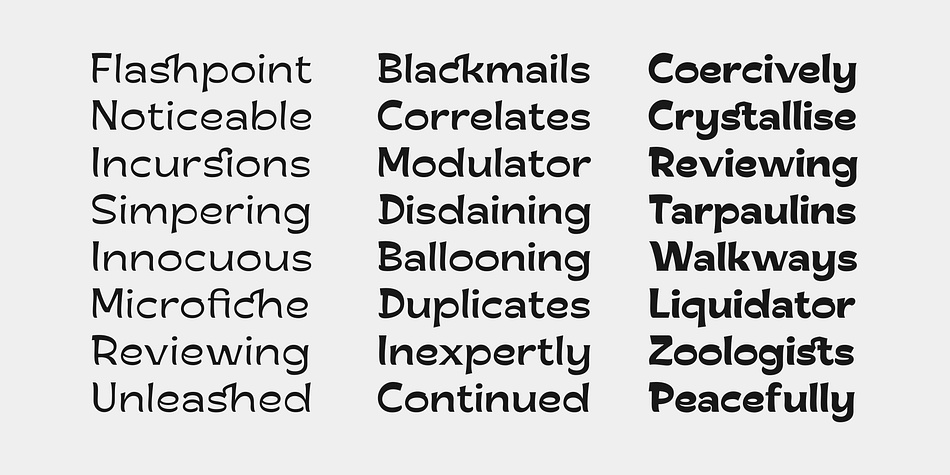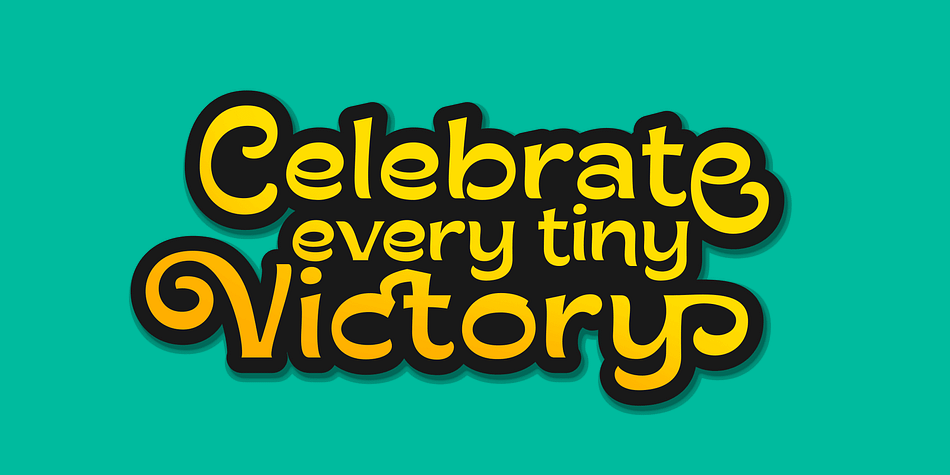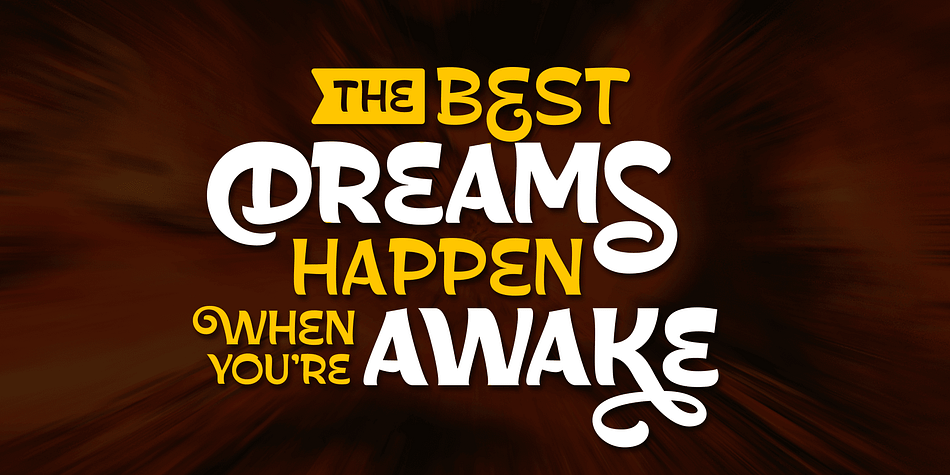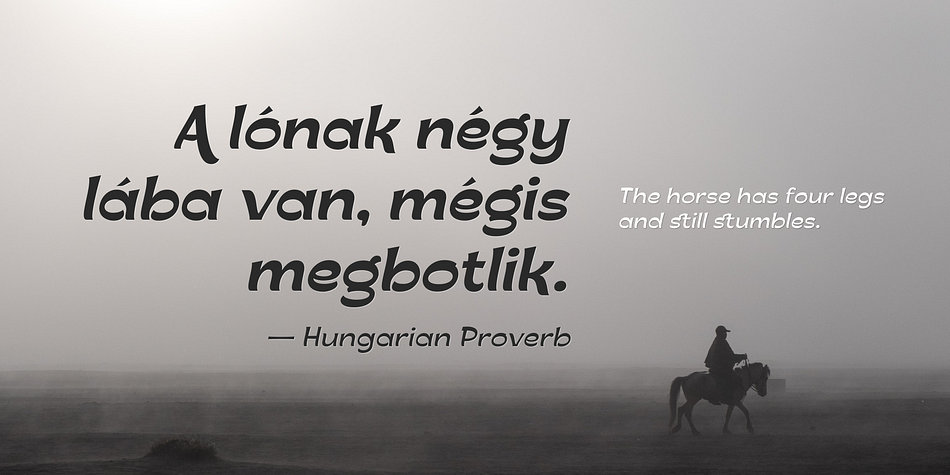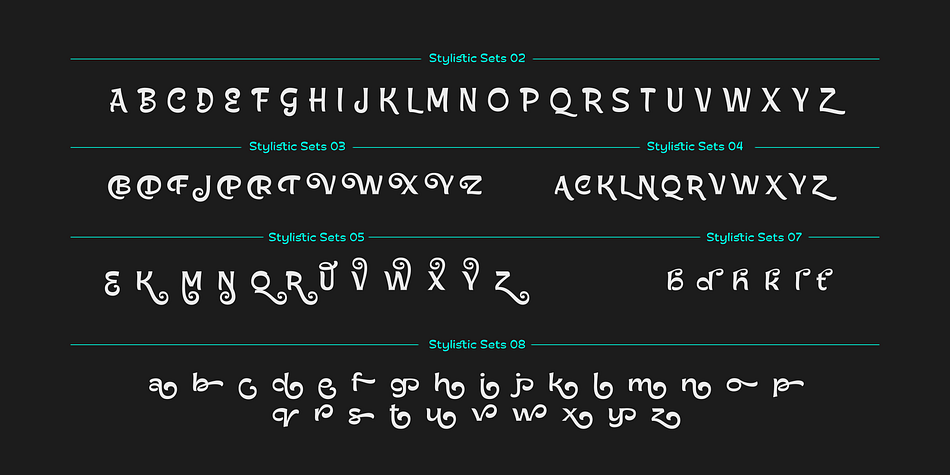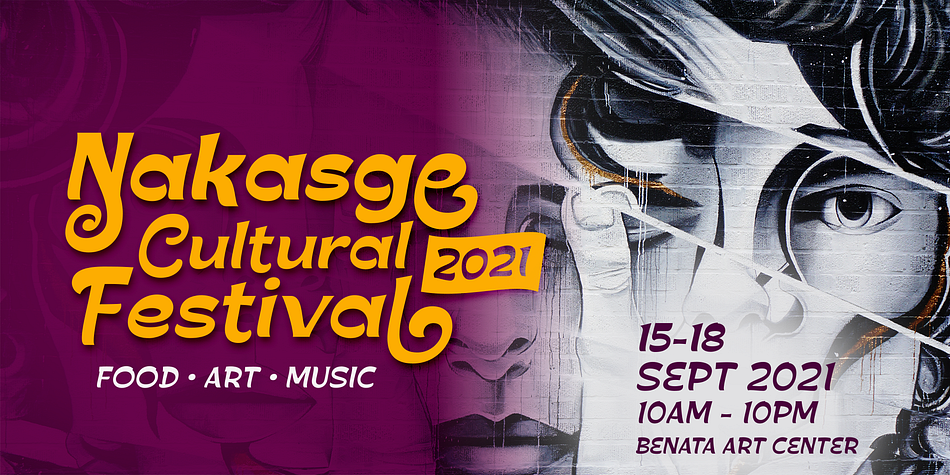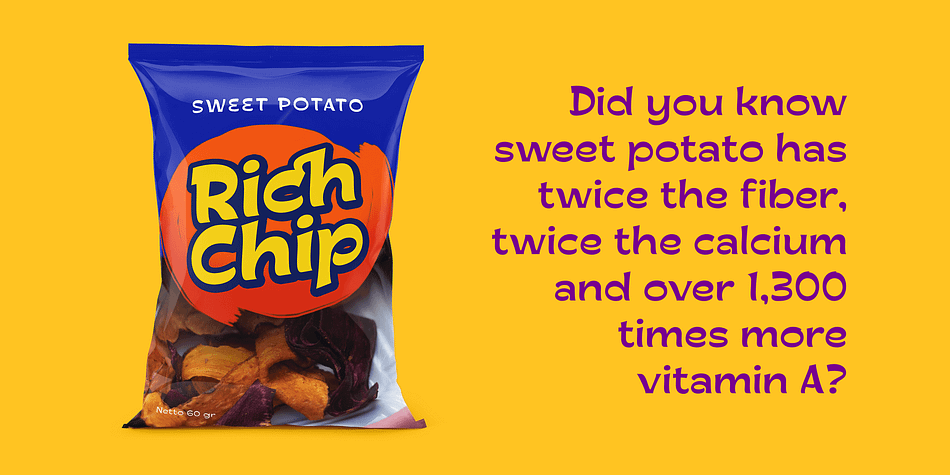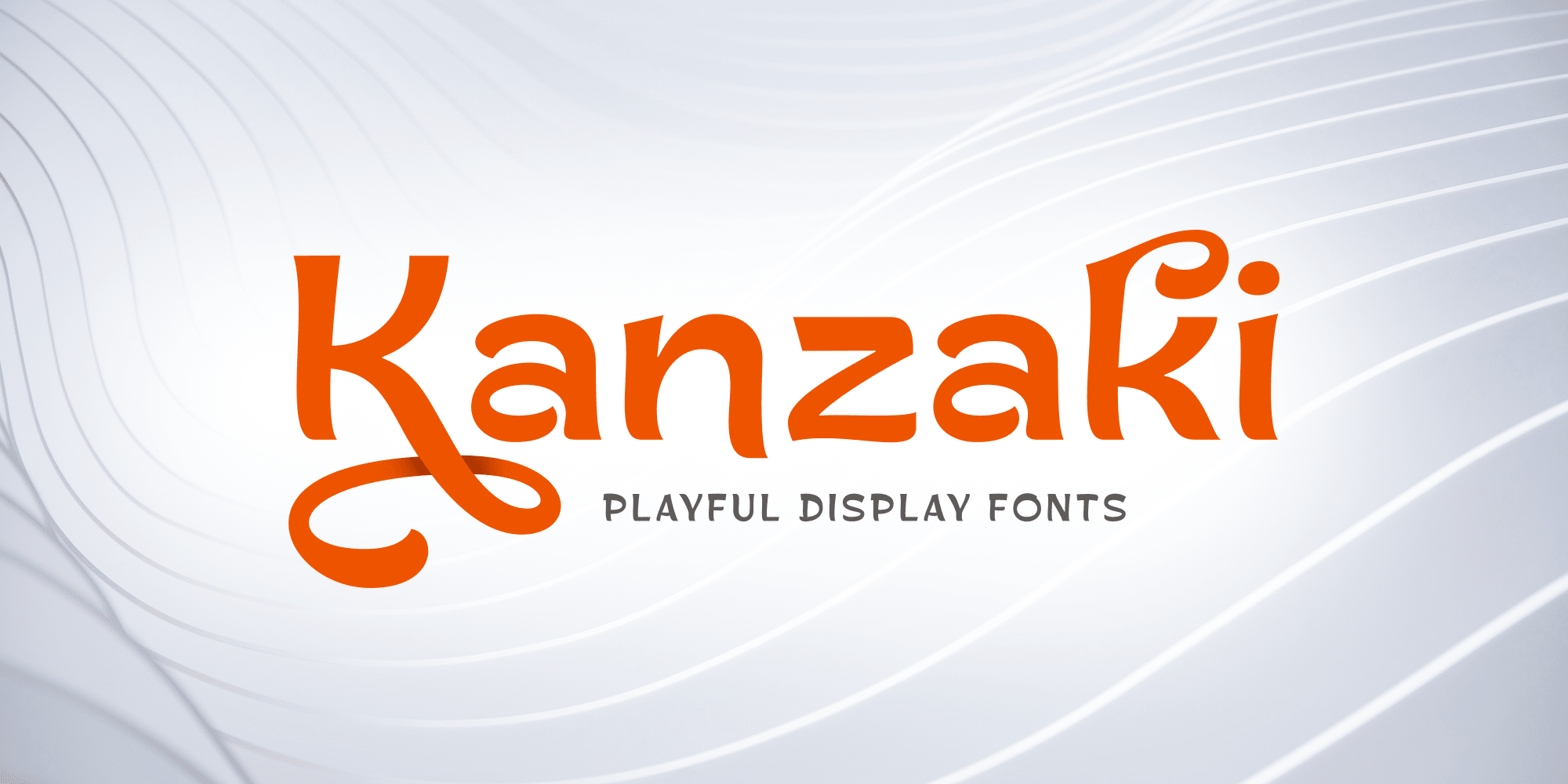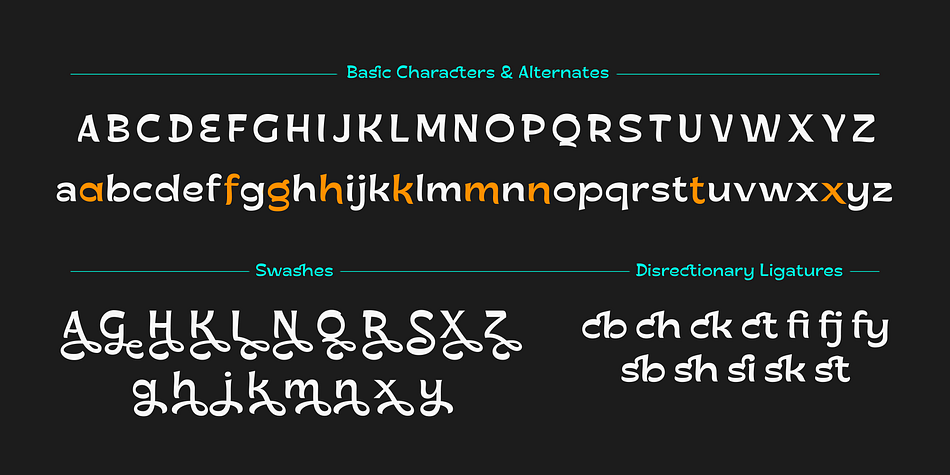
Kanzaki is a display typeface sculpted with special curves inspired by old typography combined with semi-reversed contrast. A semi-serif font that has a classic and elegant feel, yet warm and friendly.
To beautify your creations, Kanzaki is equipped with various opentype features such as disrectionary ligatures, alternates, swashes and stylistic sets. Available in 5 weights: Thin, Light, Regular, Medium, Bold and its matching italics.
Perfect for branding, packaging, logotypes, labels and posters.